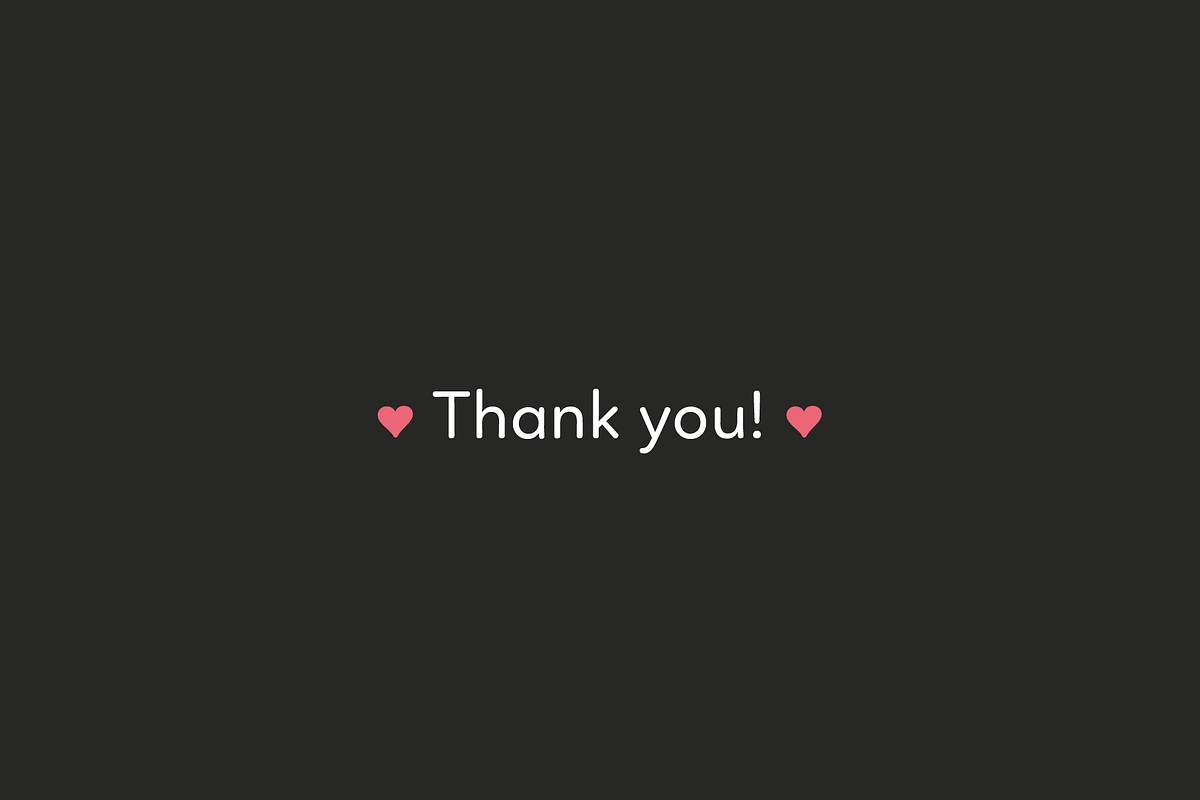
Linotte type family
Linotte is a rounded sans by Joël Carrouché. Small irregularities give the typeface a warm and naive look, while the simple geometric construction provides good legibility in long texts and small sizes. Linotte is an ideal choice for food or kids related products, or anything that needs to convey a human and friendly feeling.
Originally released in 2014, Linotte was updated in 2021 with Greek and Cyrillic support, two new styles and other small additions.
The fonts, provided in OpenType format, include diacritics for most European languages, a set of arrows & icons, and a variety of advanced features like stylistic alternates, case-sensitive forms, sub and superscript, automatic fractions, etc.